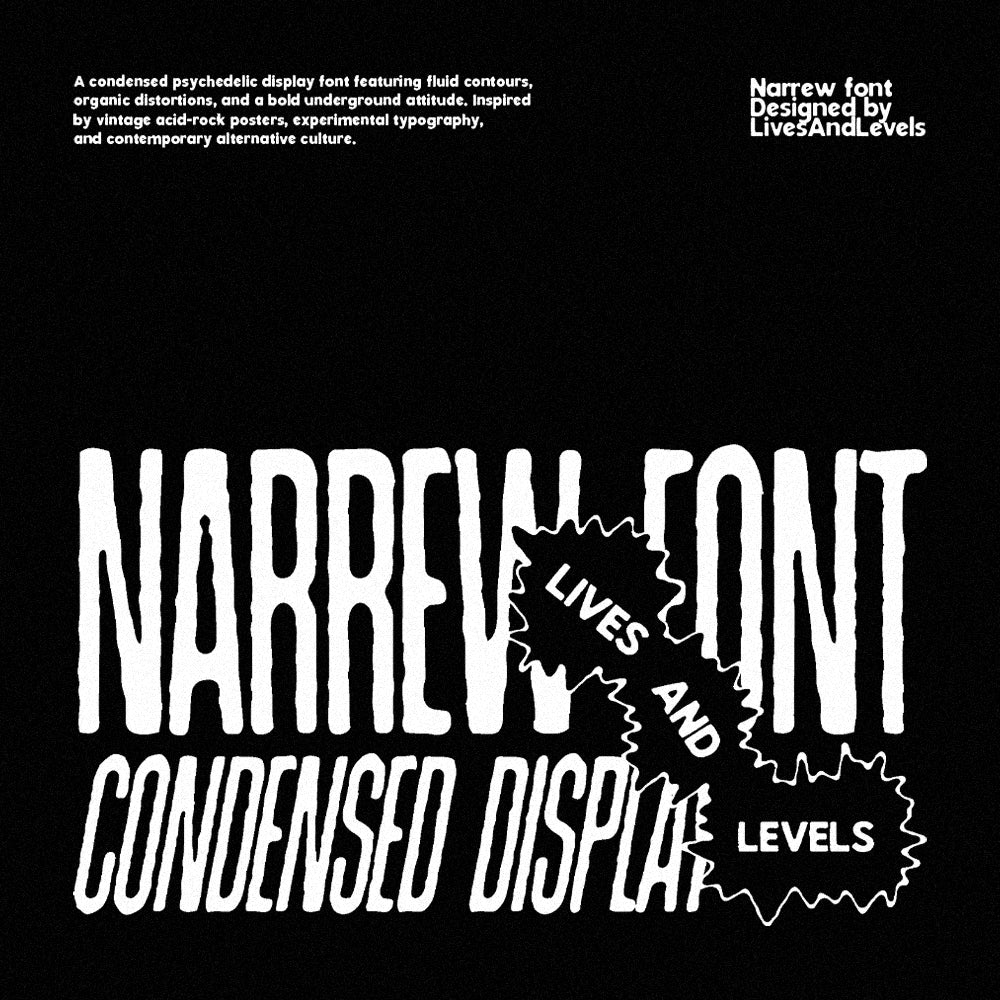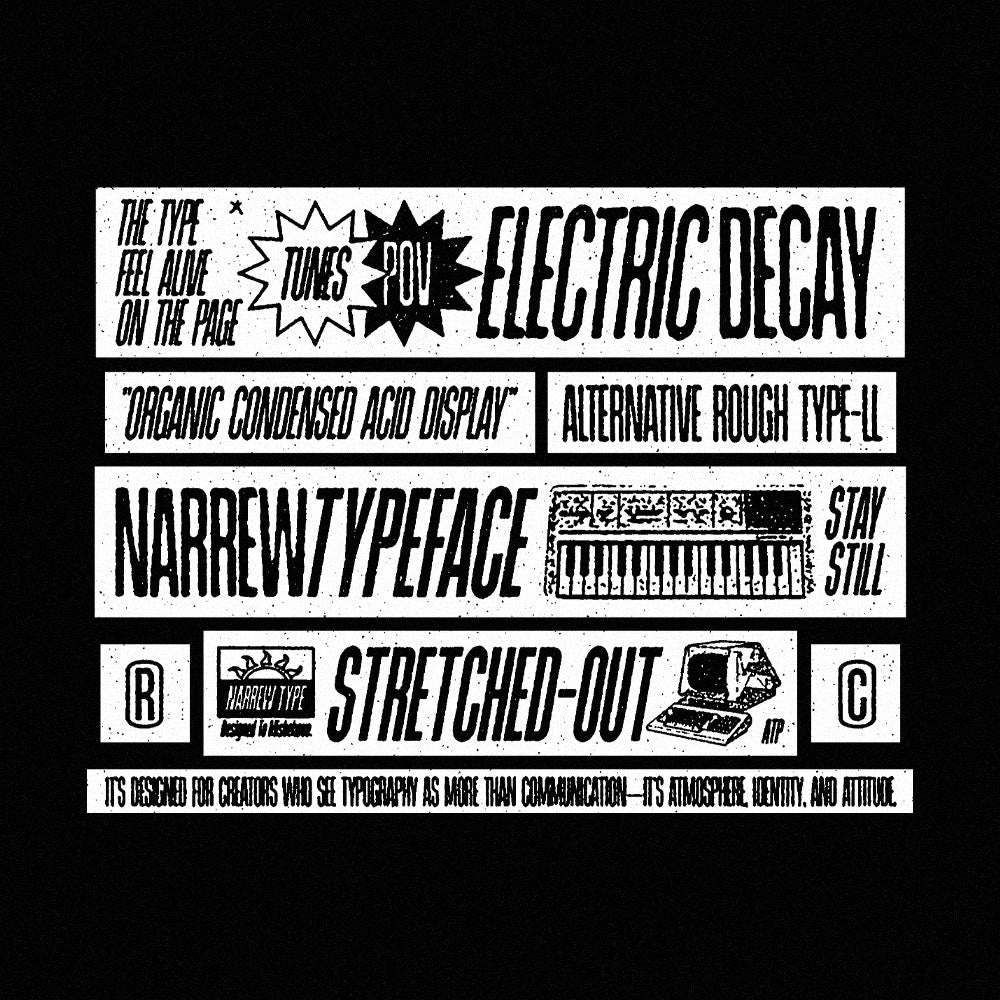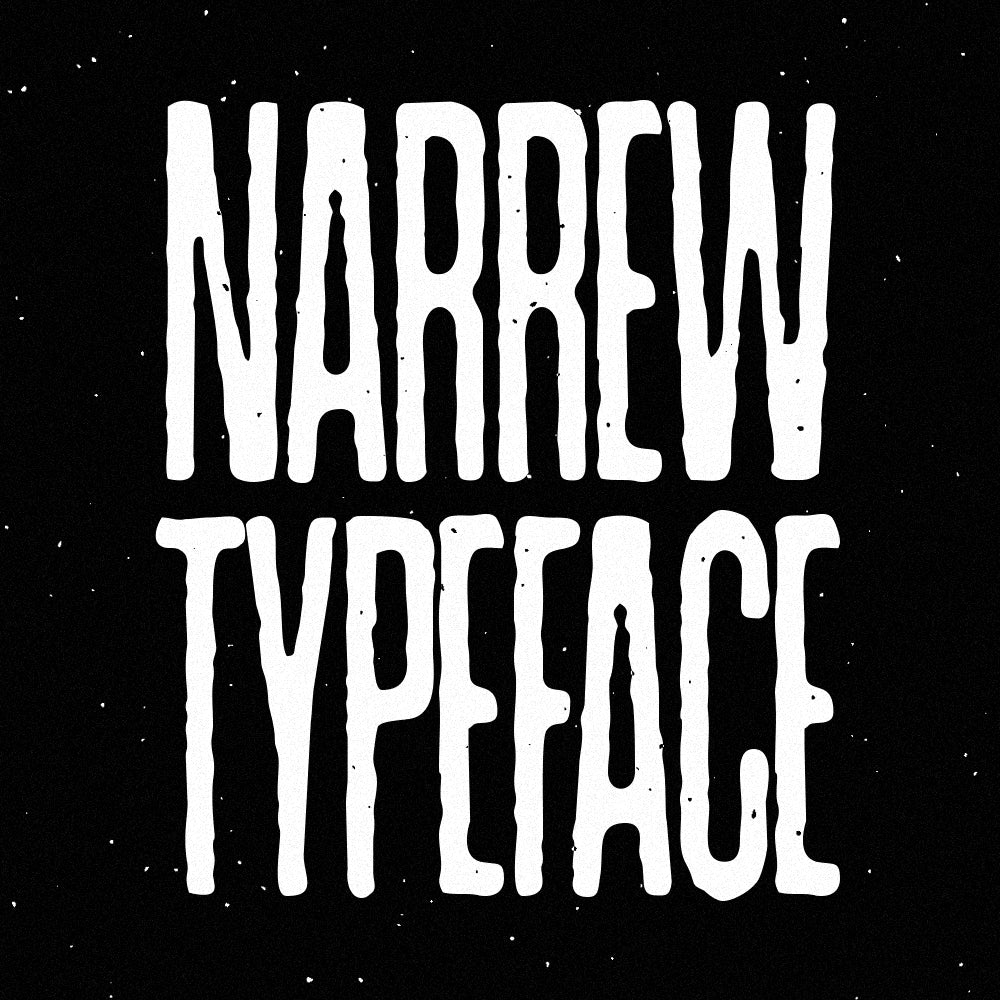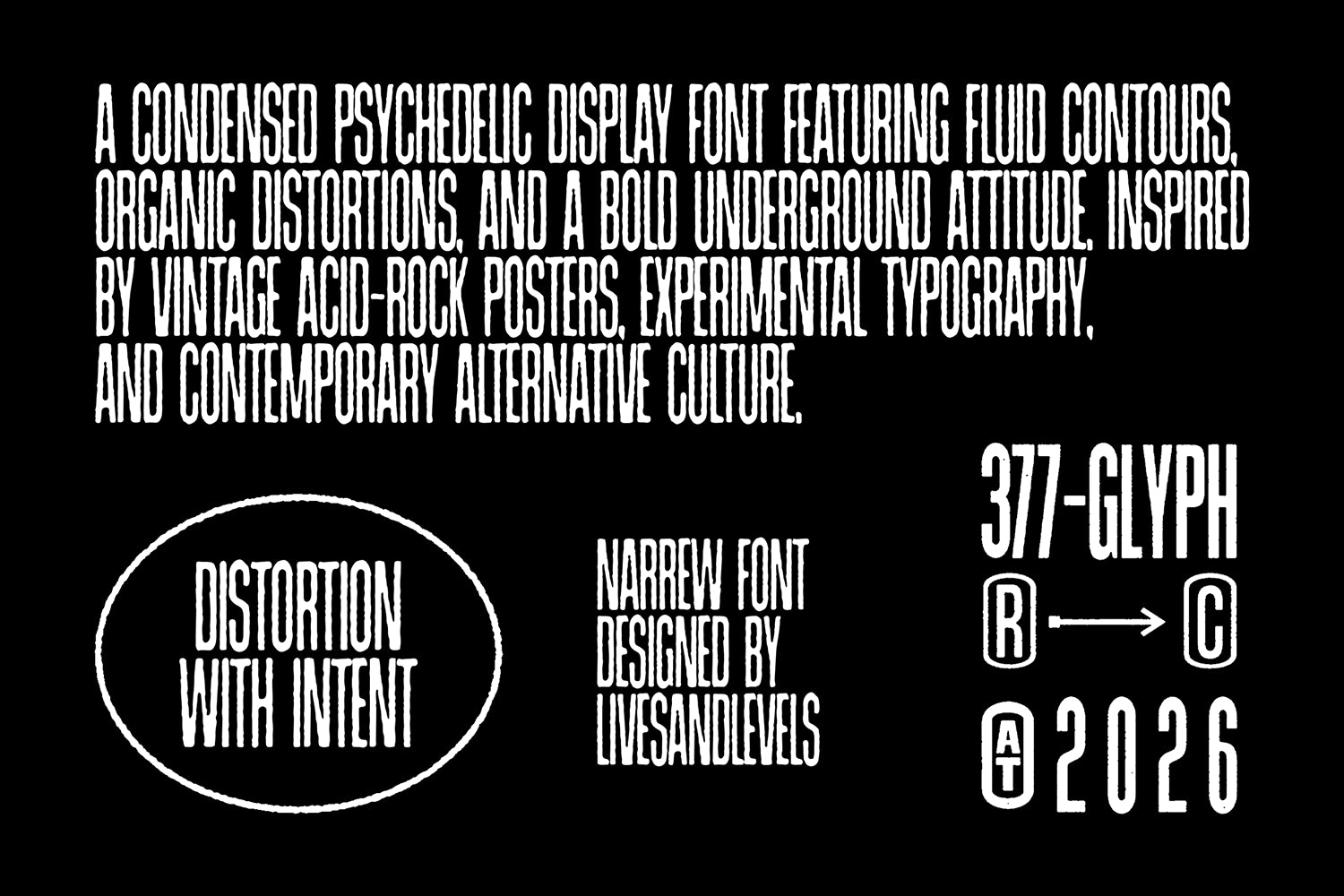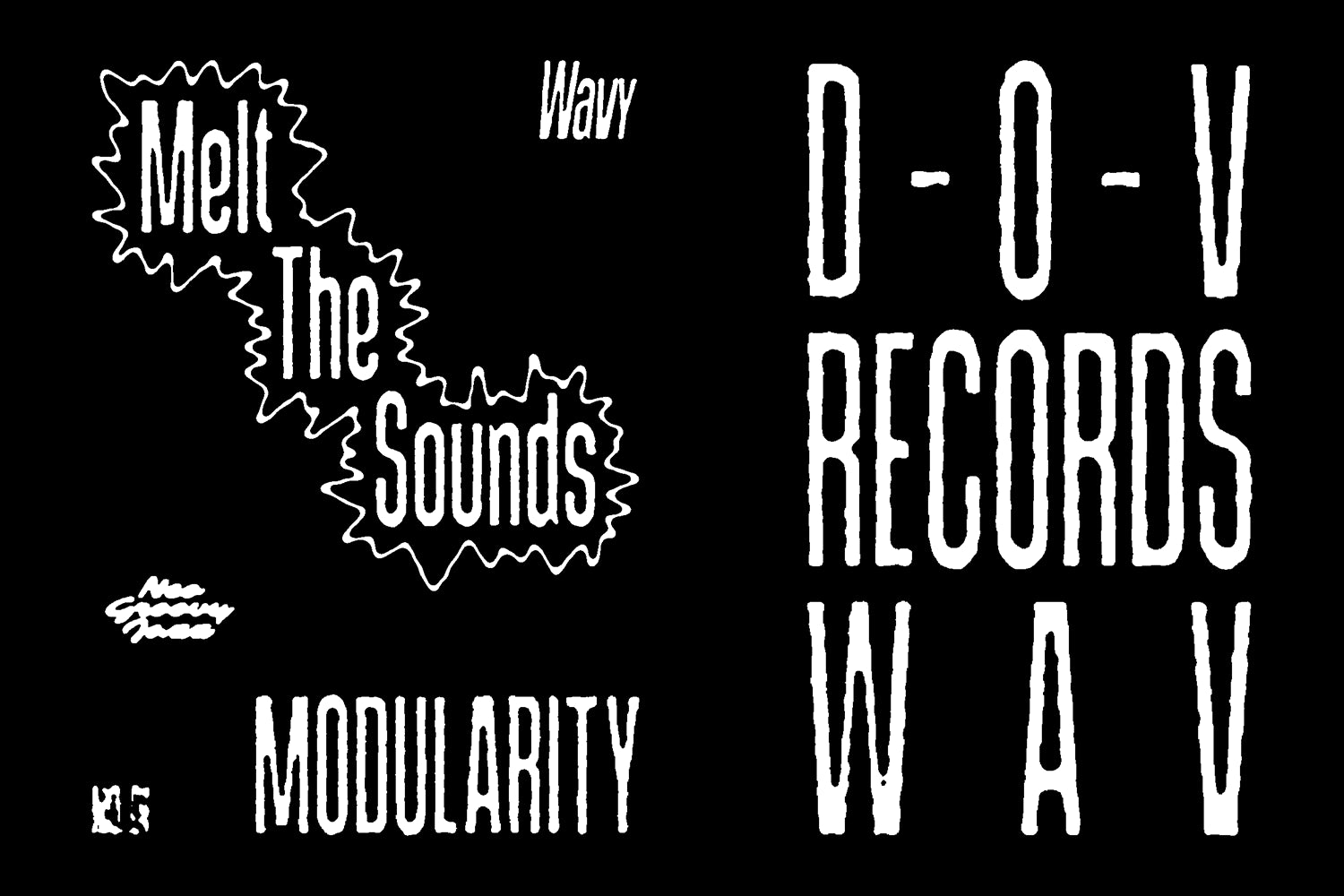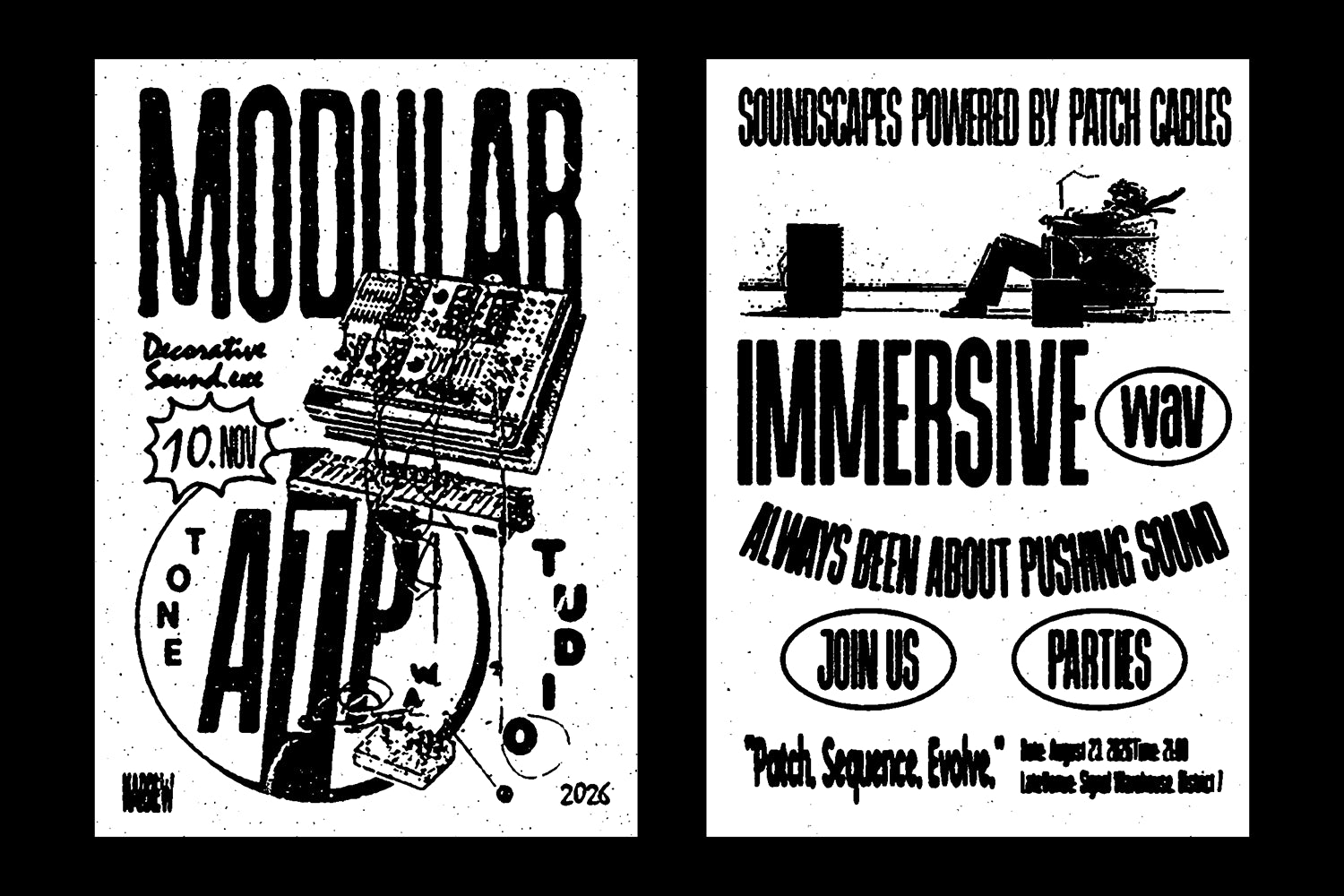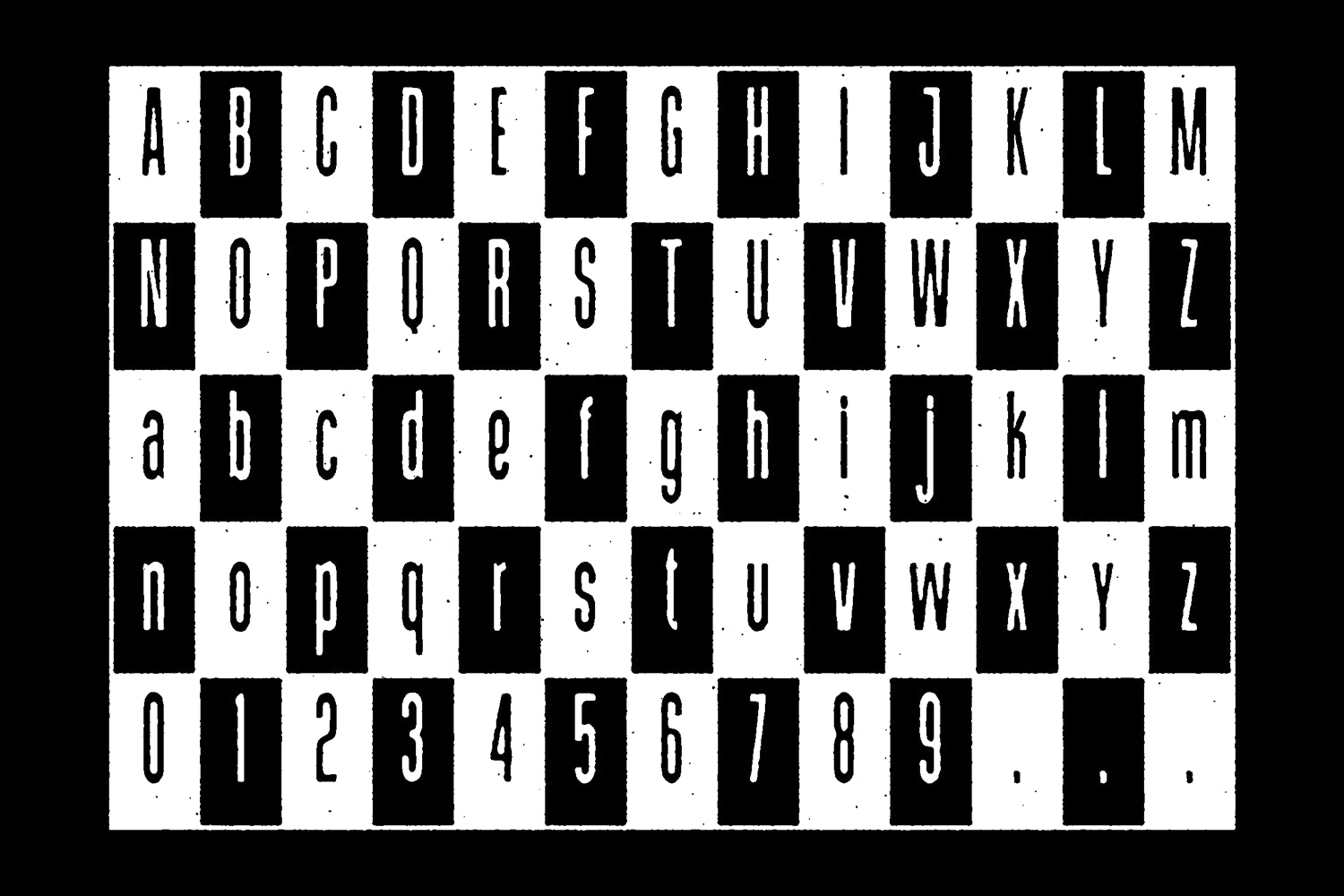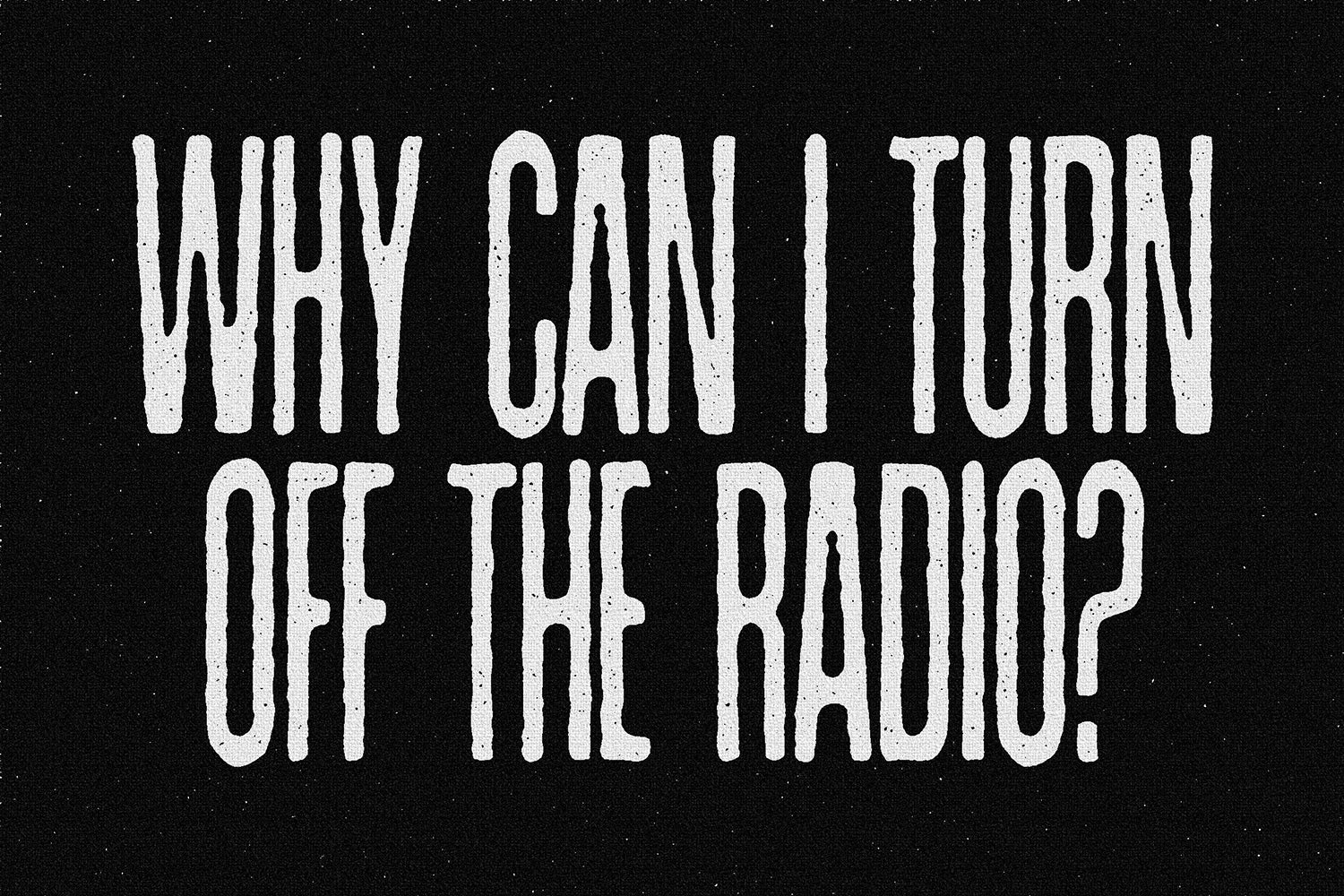
LL Narrew Textured font
Lives and Levels
A condensed display typeface with a bold, elongated structure and an organic hand-crafted feel. Its tall, compressed letterforms create a strong vertical rhythm, making it highly impactful for headlines, posters, branding, and editorial design. The slightly irregular edges and subtle distortion give the font a raw, expressive personality, balancing between vintage horror aesthetics and contemporary experimental typography. Despite its dramatic appearance, the font remains readable and visually striking, delivering a sense of tension, mystery, and artistic character.
Font Features
Uppercase & lowercase letters
Numbers & punctuation
Multilingual support
4 styles: Regular, Rough, Bold & Black
Clean kerning & spacing
LL Narrew Textured is a condensed display typeface featuring bold, elongated letterforms with an organic hand-crafted feel. It includes uppercase and lowercase letters, numbers, punctuation, multilingual support, and is available in four styles: Regular, Rough, Bold, and Black, with clean kerning and spacing in OTF, TTF, and WOFF formats.